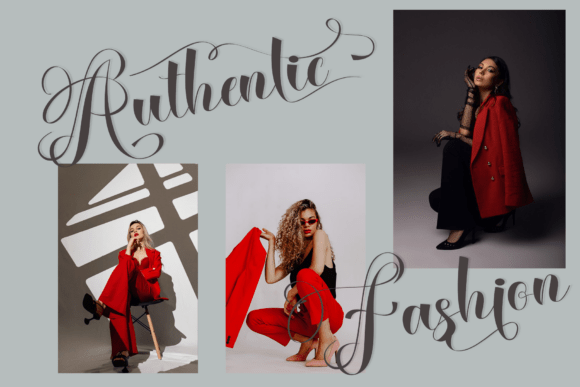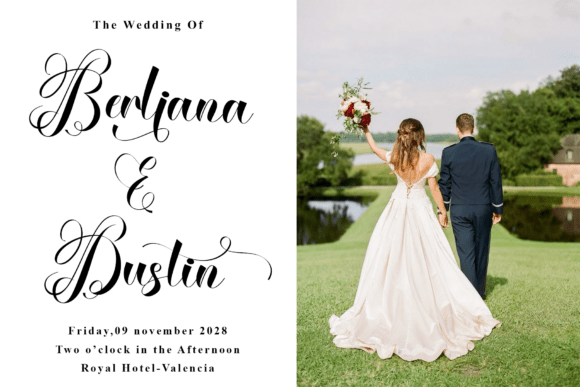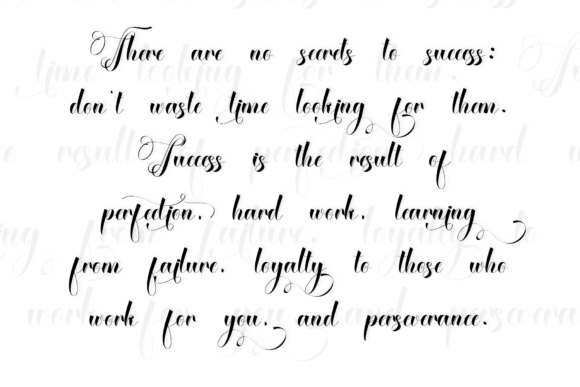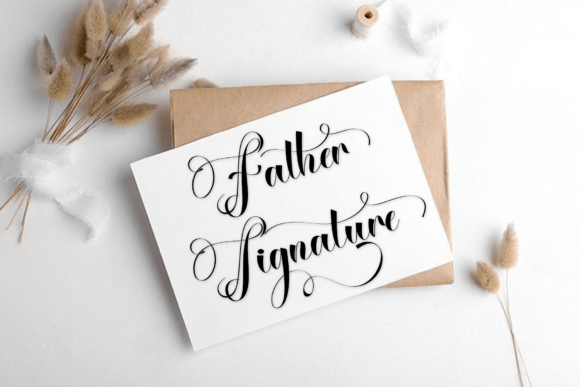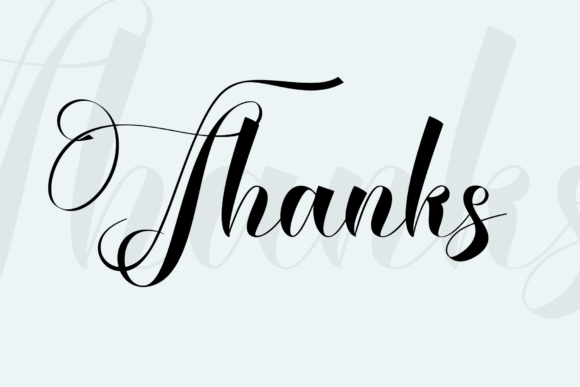
Introducing Delighter Font: Elevate Your Designs with Elegance and Style
In the world of typography, a font can make or break the aesthetic of a design. For those seeking a touch of elegance and sophistication, Delighter Font is an exceptional choice. This stylish and incredibly elegant handwritten font is perfect for designers and crafters looking to add a personal, refined touch to their projects.
The Versatility of Delighter Font
Delighter Font is not just a font; it’s a design element that can transform your work. Its versatility makes it suitable for a wide range of applications, including:
- Wedding Invitations: Add a romantic and sophisticated flair to your wedding invitations, making the special day even more memorable.
- Thank You Cards: Express gratitude with style and elegance, perfect for personal and professional gestures.
- Quotes: Make inspirational and motivational quotes stand out with a font that exudes charm and character.
- Greeting Cards: Whether it’s a birthday, anniversary, or holiday, Delighter Font adds a touch of class to any greeting card.
- Logos: For businesses looking for a brand identity that speaks of luxury, sophistication, and elegance, Delighter Font can be a unique choice.
- Business Cards: Stand out in the professional world with business cards that boast a stylish and elegant font.
Why Choose Delighter Font?
Delighter Font stands out from the myriad of fonts available for several reasons:
- Elegant Handwritten Style: Its beautifully crafted letters offer a personal and intimate feel to any design.
- High Readability: Despite its elegant nature, Delighter Font maintains high readability, making it perfect for both headings and body text.
- Unique Character: Each letter is designed with a unique character, ensuring that your designs have a distinct personality.
Tips for Using Delighter Font Effectively
To maximize the impact of Delighter Font, consider the following tips:
- Pair with Complementary Fonts: For a harmonious design, pair Delighter Font with fonts that complement its elegance, such as simple sans-serifs or classic serifs.
- Adjust Letter Spacing: For optimal readability and aesthetics, adjust the letter spacing according to the size and application of the font.
- Consider Color Choices: Delighter Font looks stunning in a variety of colors, but soft pastels, gold, and classic black and white are particularly effective for adding elegance.
Where to Use Delighter Font
The applications of Delighter Font are endless, but here are some popular uses among designers and crafters:
- Stationery: Elevate your stationery designs with a font that speaks of luxury and personal touch.
- Branding: For brands aiming to convey a sense of elegance, sophistication, and premium quality, Delighter Font can be a valuable asset.
- Packaging: Make your product packaging stand out with a stylish and elegant font that captures the essence of your brand.
- Digital Media: From social media graphics to website headers, Delighter Font can add a touch of class to your digital designs.
Delighter Font is more than just a typeface; it’s a design statement that can elevate your projects with its stylish and elegant handwritten charm. Whether you’re a professional designer or a passionate crafter, Delighter Font offers the versatility and sophistication needed to create stunning designs. With its wide range of applications and ease of use, Delighter Font is set to become your go-to choice for projects that demand a touch of elegance and personal style.